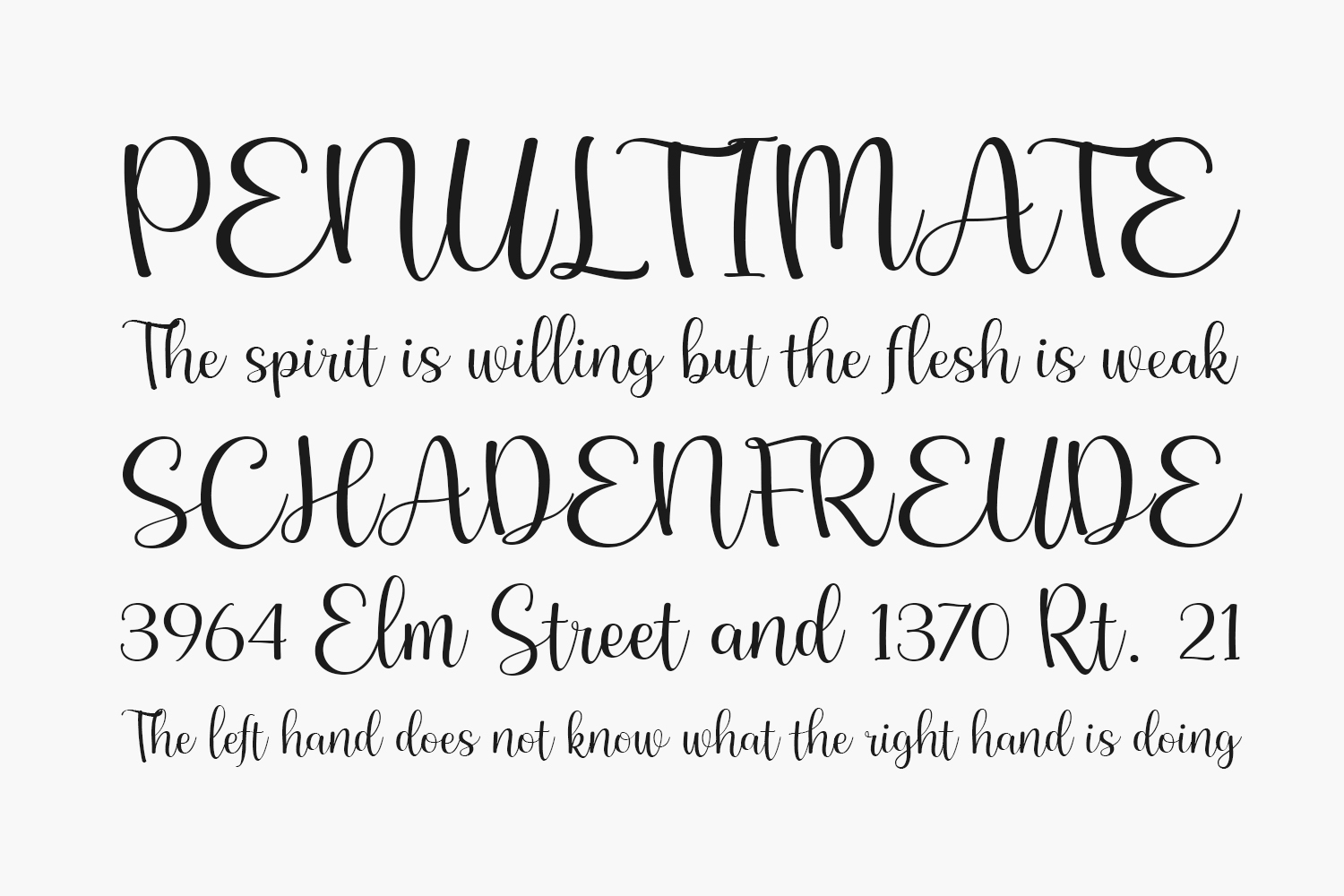
Anissa Free Font is a modern and elegant calligraphic script font. Fall in love with its authentic feel and use it to create gorgeous wedding invitations, beautiful stationary art, eye-catching social media posts, and cute greeting cards. Anissa Free Font was designed by Brithos Type and is free for personal use only. Please purchase the full version for commercial use.